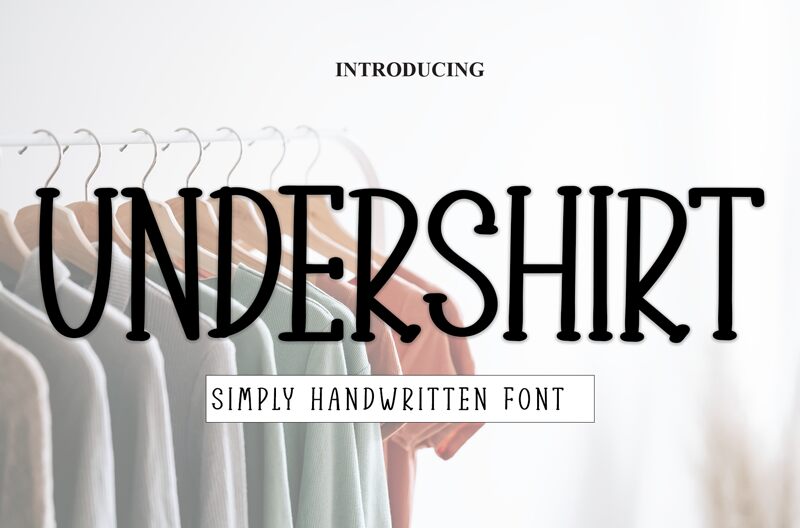
Undershirt
Undershirt font by Creatype Designer is a free handwritten typeface that stretches tall and skinny, with inky ball terminals that dot the ends like brush snaps. The letters feel steady yet human—slightly irregular strokes, narrow proportions, and snug counters create a cozy, hand-painted rhythm. It reads with a lively upright bounce, giving headlines a friendly tug without slipping into messiness.
Using Undershirt, you get that charming “chalkboard sign” vibe that shines on cafe menus, craft packaging, quote graphics, kids’ book covers, event posters, and greeting cards. The compact width fits long words without shouting, while the soft edges keep it warm on screen and print. This free font pairs nicely with a simple geometric sans for body copy; give it a touch of extra letter-spacing at larger sizes.